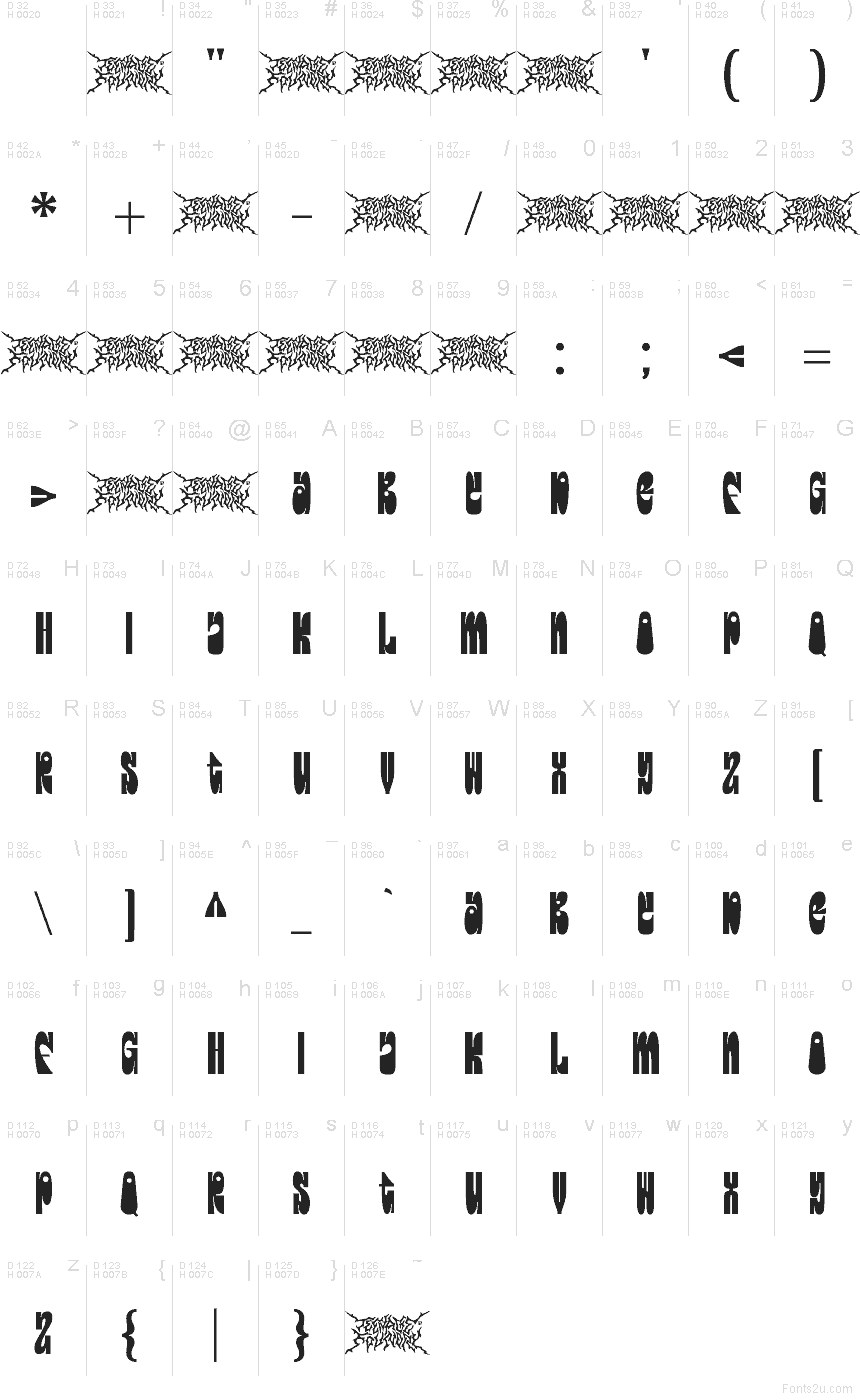
Teenage Wanker font by Teenage Foundry is a free groovy display typeface that rides the line between psychedelic poster art and bold street lettering. Its chunky, ink-heavy strokes squeeze into tall, narrow silhouettes, while the sliced-open counters and yin-yang curves create a hypnotic, almost liquid rhythm across the line. Letters lock together like cut-out shapes on a gig poster, giving every word a dense, high-energy presence that’s impossible to ignore.
Using Teenage Wanker, headlines feel loud, mischievous, and a bit unruly-great for band logos, festival posters, zines, stickers, album covers, and bold social media graphics. This free font shines when you set it big and give it room to breathe; pair it with a clean, neutral sans serif for small supporting text so the wild, groovy forms stay center stage.